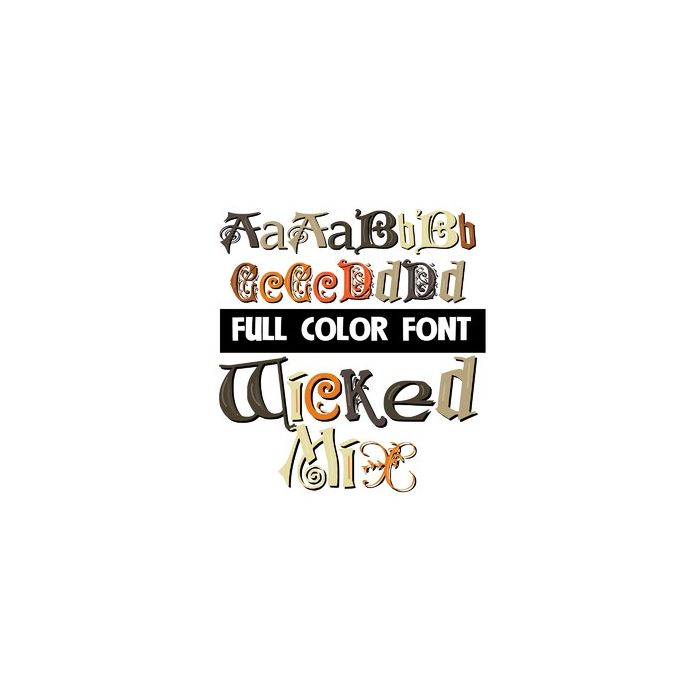
This mix of full-color lettering styles is done in a Halloween color palette. There is a second version of each upper and lowercase letter in a different color available through Silhouette's glyph map.